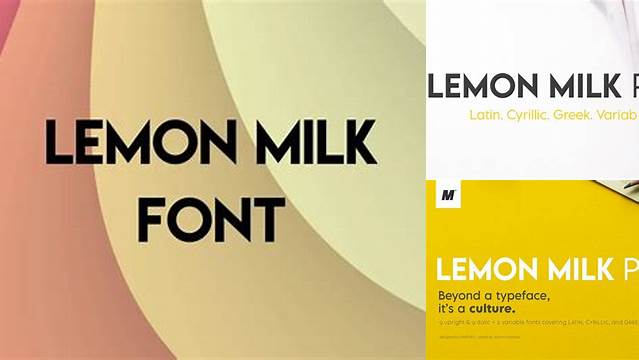
Hey guys! Ever stumbled upon a font that just screams personality? That's Lemon Milk Pro Font for ya! It's a total vibe, and if you're looking to snag it for free, you've come to the right place. This guide will walk you through everything – from where to download it safely to how to use it like a pro. So, buckle up, because we're diving headfirst into the world of this awesome font! Ready to transform your designs? Let's get started!
1. Introduction to Lemon Milk Pro Font: The Cool Kid on the Block
Alright, let's talk about why Lemon Milk Pro Font is such a big deal. Think of it as the cool kid in the font playground – stylish, versatile, and always turning heads. This font isn't just another typeface; it's a statement. Created by a talented designer, this font has gained immense popularity, especially among graphic designers, bloggers, and social media enthusiasts. It's known for its clean lines, unique curves, and a touch of playful elegance that makes any design pop. Whether you're crafting a logo, designing a website, or creating social media graphics, this font adds a touch of sophistication and approachability. It’s the perfect blend of modern and classic, making it ideal for various projects. The font's popularity is partly due to its readability and the distinct aesthetic it brings to the table. Many designers love it because it's easy to integrate into various design styles, from minimalist to more elaborate compositions. Its adaptability makes it a go-to choice for those seeking a font that's both visually appealing and highly functional. Furthermore, the font has a wide range of characters and weights, allowing for diverse applications. From headlines to body text, Lemon Milk Pro ensures that your message is delivered with style and clarity. The attention to detail in its design makes it stand out in a crowded market of fonts. Lemon Milk Pro Font offers a unique aesthetic that immediately grabs attention, making it a favorite among those who want their projects to stand out. The charm of this font lies in its ability to be both trendy and timeless, ensuring that your designs will stay relevant for years to come. So, if you're looking to add a touch of flair and personality to your projects, Lemon Milk Pro Font is definitely worth exploring.
1.1. The Story Behind the Font: Who Created This Masterpiece?
Ever wondered who's the genius behind Lemon Milk Pro Font? Knowing the creator can add a whole new level of appreciation to the font, right? The creator, a skilled designer, poured their heart and soul into crafting this typeface. While the specific details of the creator's life are sometimes kept private, their impact on the design world is undeniable. The designer’s passion for creating fonts that are both aesthetically pleasing and functional is evident in every curve and line of Lemon Milk Pro. They aimed to create a font that could be used across a wide range of applications, from logos to websites. The designer's meticulous attention to detail ensures that the font is not only beautiful but also highly readable, making it a perfect choice for both display and body text. The designer's vision was to create a font that would appeal to a broad audience, and they succeeded. By carefully balancing aesthetics with functionality, they developed a font that is both versatile and visually striking. It's clear that the creator understood the importance of creating a font that would stand out in a crowded marketplace. The dedication and skill of the designer are reflected in the font's enduring popularity. The design reflects a deep understanding of typography principles, ensuring that the font maintains its visual appeal and clarity across various sizes and contexts. Their creative vision has brought this font to life, and it has become a favorite among designers and creatives worldwide. The creator’s goal was simple: to provide designers with a tool that inspires creativity and elevates their work. So, when you use Lemon Milk Pro Font, remember the talent and dedication that brought it to life. Their impact on the design community is significant, and their work continues to inspire others to push the boundaries of creativity.
1.2. Why Is Lemon Milk Pro Font So Popular?
Okay, let's break down why Lemon Milk Pro Font is practically the Beyoncé of the font world. Its popularity isn't just a fluke; it's earned. First off, the aesthetic is killer. It's clean, modern, and has that perfect touch of personality without being over the top. It's got a style that grabs your attention, making it ideal for branding. Next, its versatility. This font works for everything – from headlines to body text, logos to website designs, and even social media graphics. It’s the Swiss Army knife of fonts. The design is incredibly well-balanced. It's easy to read, even at smaller sizes, and maintains its charm in larger displays. The visual consistency and the careful attention to detail make Lemon Milk Pro Font a solid choice for any project, no matter the application. It blends seamlessly into various styles, whether you're going for a minimalist design or something more elaborate. Beyond aesthetics, Lemon Milk Pro Font has great readability, and legibility is key. It ensures that your audience can easily understand the message you're trying to convey. This is crucial for any project. Plus, many designers and creators love the font because it offers various weights and styles. This flexibility allows you to emphasize different elements and maintain visual consistency. Also, the font's widespread use creates a sense of familiarity. This makes it easy for your audience to connect with your design, as it leverages the familiarity of a well-loved font. Finally, there's the community aspect. The design is not just a font; it's part of a movement. Designers and creators have shared their work using Lemon Milk Pro Font, and its popularity has grown from there. This has made it a go-to font for projects aiming to capture attention. The font's clean, stylish, and versatile design makes it a favorite for creatives looking to add flair to their designs. So, there you have it – all the reasons why Lemon Milk Pro Font is still going strong. The reasons for its popularity are clear: it's stylish, versatile, and community-supported, making it a top choice for designers.